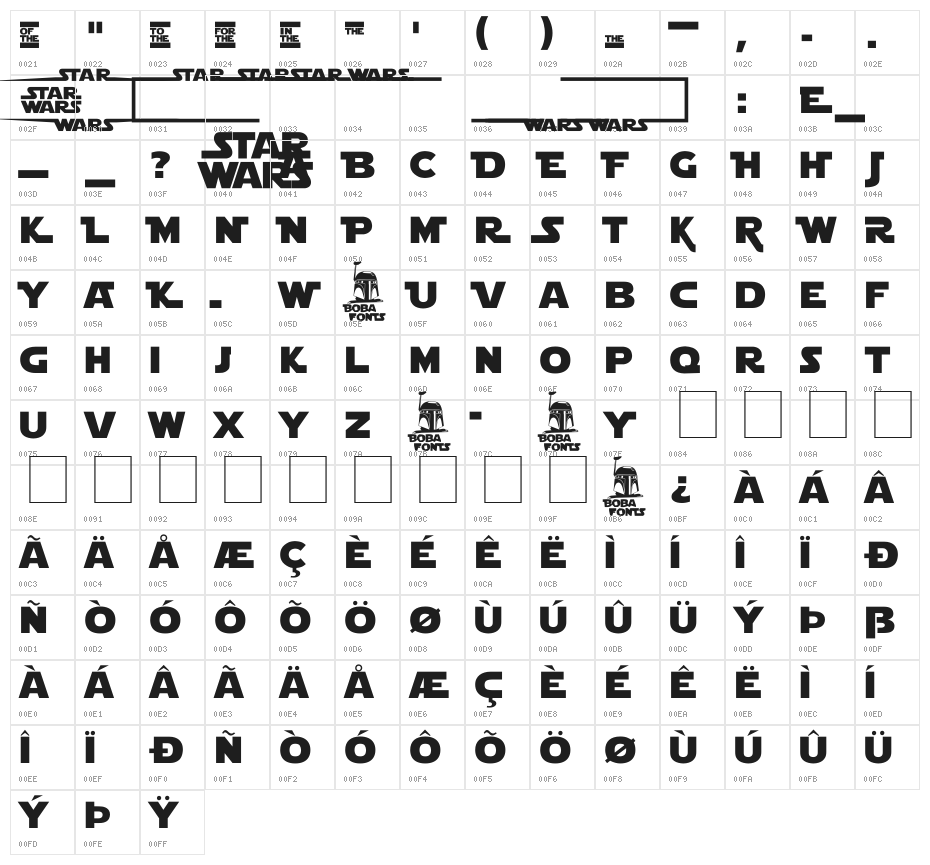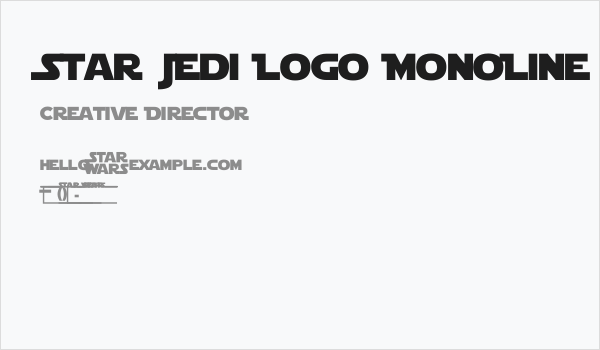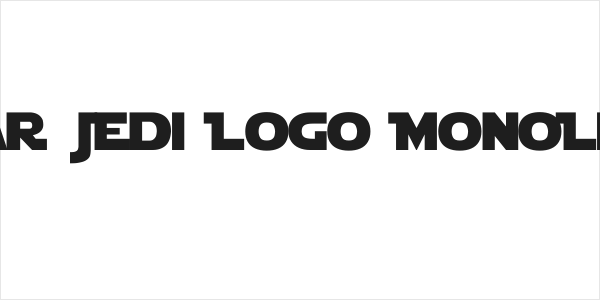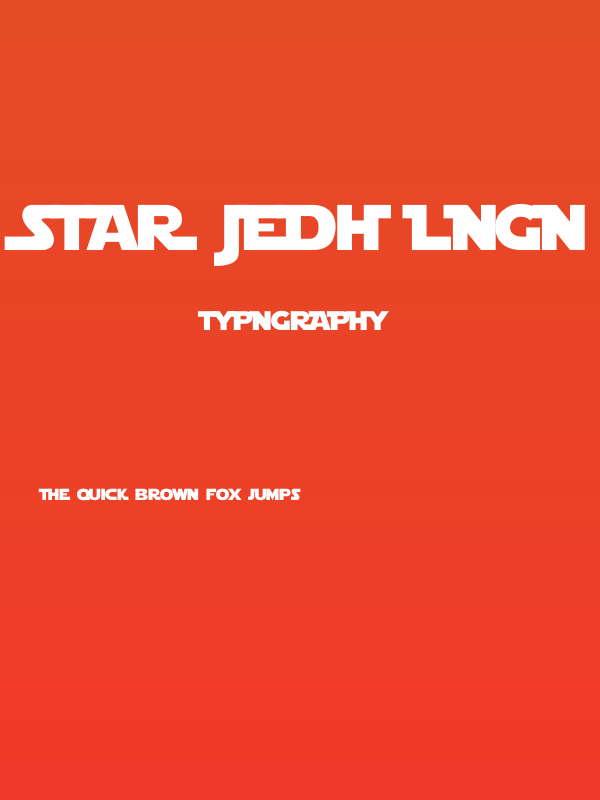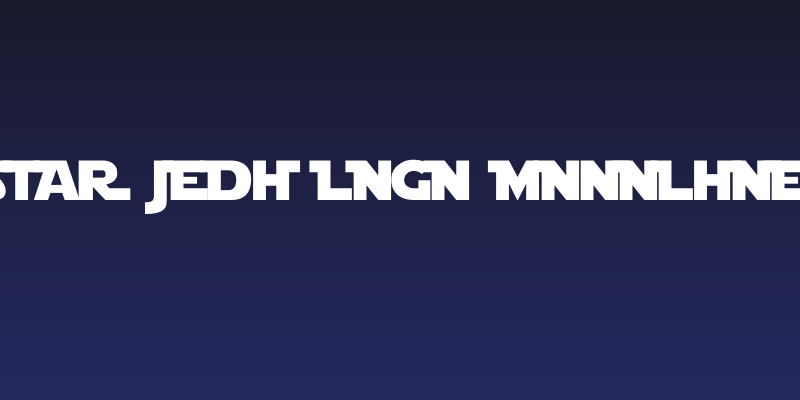
Star Jedi Logo MonoLine Font
Star Jedi Logo MonoLine Description
This font features bold, geometric letterforms with a futuristic and sci-fi aesthetic. The characters are constructed with sharp angles and clean lines, creating a sense of movement and energy. The uppercase letters are particularly striking, with unique cuts and shapes that give them a distinctive look. The lowercase letters maintain the same boldness and angularity, ensuring consistency across the typeface. The numerals and special characters are designed to match the overall style, making this font suitable for thematic designs. Its strong visual impact makes it ideal for projects that require a bold statement.
| Proposed Projects | Ideal for sci-fi themed posters, movie titles, video game graphics, and branding for tech companies. |